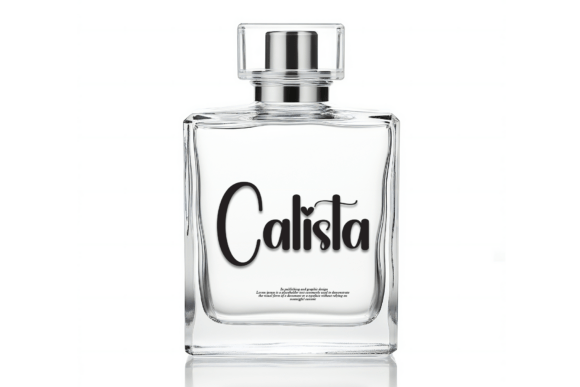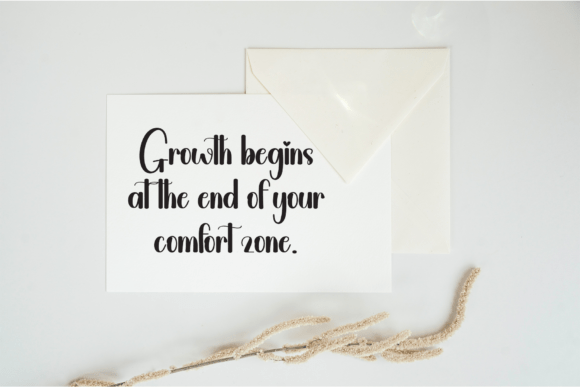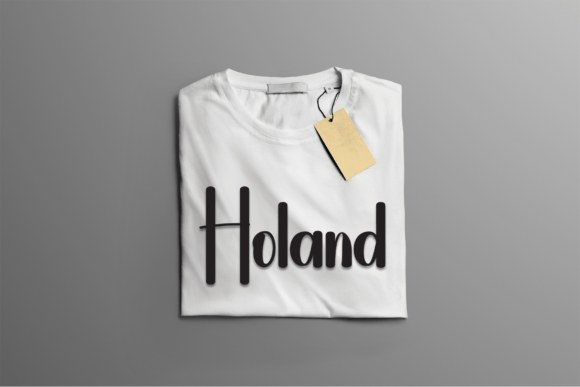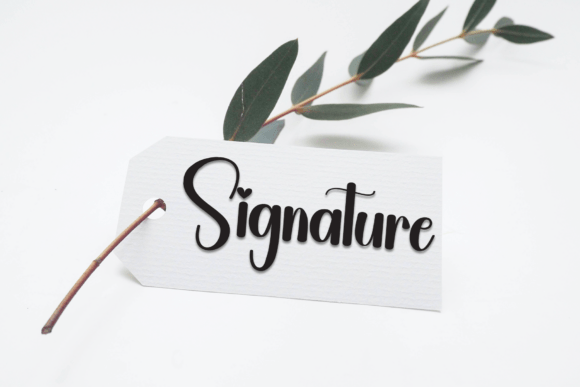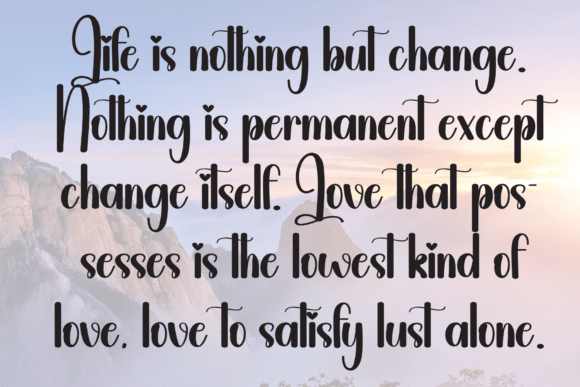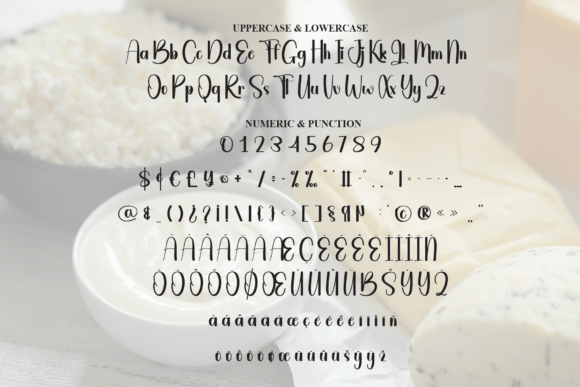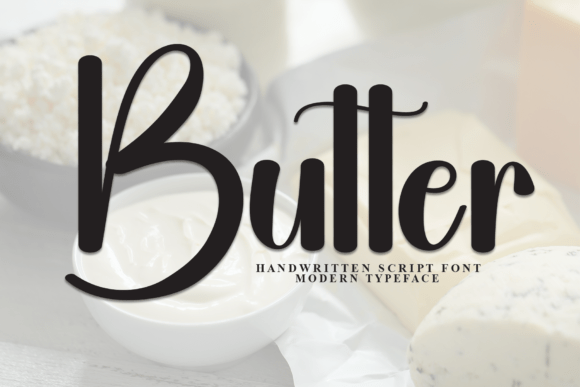
The Butter Font: A Sweet Addition to Your Design Toolkit
A First Impression: What Makes Butter Font Special
The Butter font is a stylish handwritten script font that effortlessly combines sophistication with a charming, personal touch. Its flowing curves and natural rhythm make it perfect for adding a unique flair to invitations, branding, and social media content. Whether you’re a designer, crafter, or creative hobbyist, this font is sure to bring warmth and creativity to any project.
What I Love About Butter Font ✨
- ✅ Elegant and playful at the same time – perfect for a wide range of design projects
- ✅ Extensive OpenType features, including glyphs and stylistic alternates, to give your designs a personal touch
- ✅ Works beautifully for both digital and print projects
- ⚠️ Some of the more intricate details might get lost at very small font sizes
- ⚠️ Limited availability of certain characters, which might require some creative workaround
The Story Behind Butter Font: Designer Inspiration
While the actual origins of the Butter font are unclear, it’s easy to imagine that its designer was inspired by the world of art and literature. Perhaps they drew inspiration from the flowing scripts of classic novels, or the elegant calligraphy of wedding invitations. Whatever the inspiration, the result is a font that exudes warmth, sophistication, and creativity.
Q: What makes Butter font suitable for branding projects?
A: The Butter font’s elegant and playful design makes it perfect for branding projects, as it adds a personal touch and helps to create a unique visual identity.
Q: Is Butter font suitable for body text?
A: While Butter font is highly legible, it’s primarily designed for display purposes. For body text, you may want to consider a more traditional serif or sans-serif font for better readability.